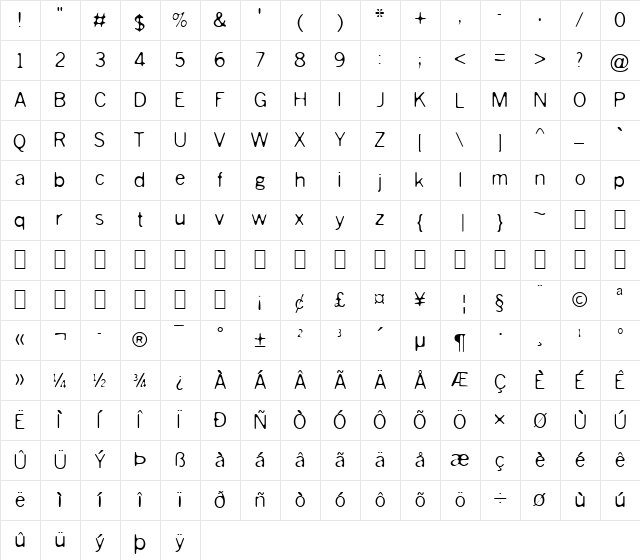
Slurry Normal
Design Context for Slurry Typeface
Slurry offers clean, dependable letterforms without strong stylistic allegiance, making it a practical choice for designers who need flexibility.
Pro Tip: Pair Slurry with a font of contrasting weight or personality to build a more expressive typographic hierarchy.